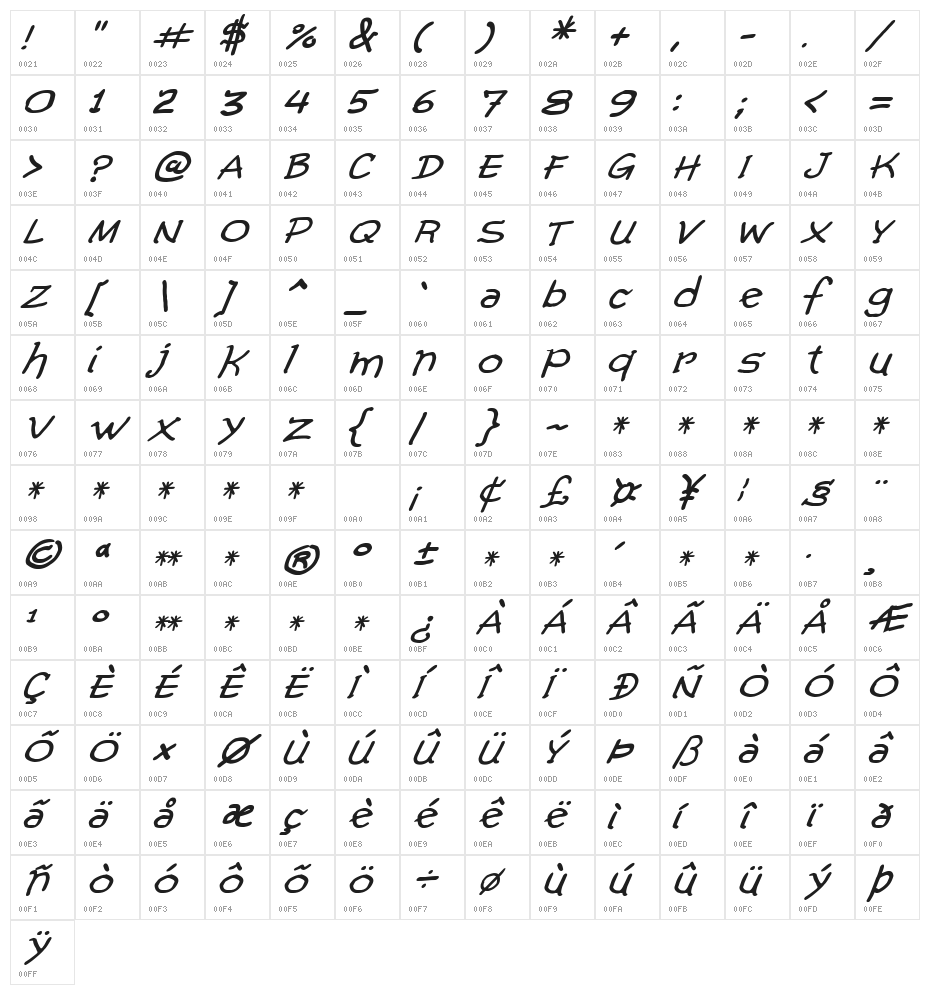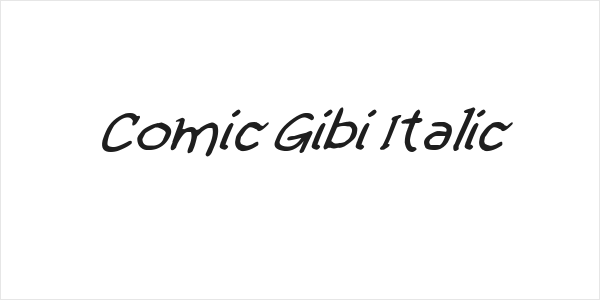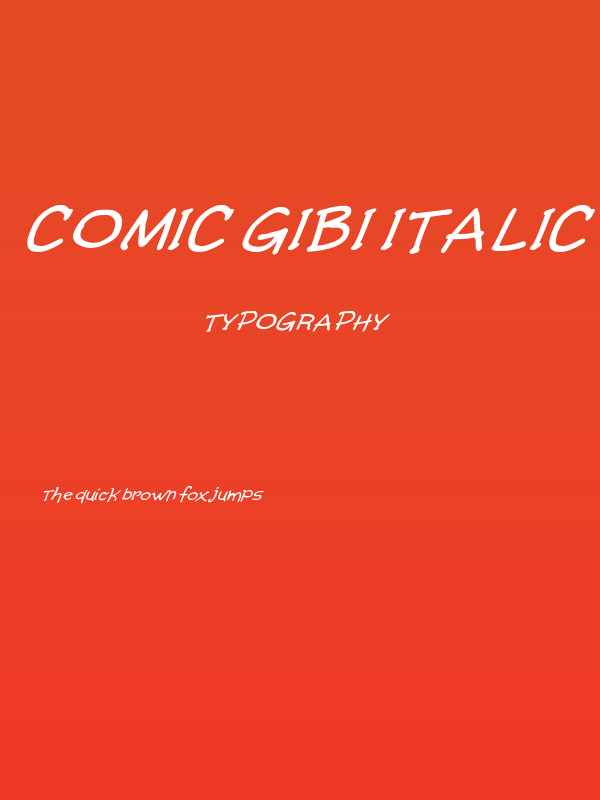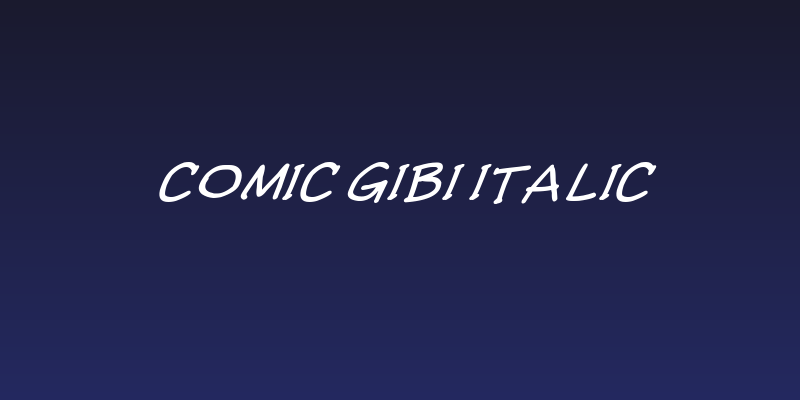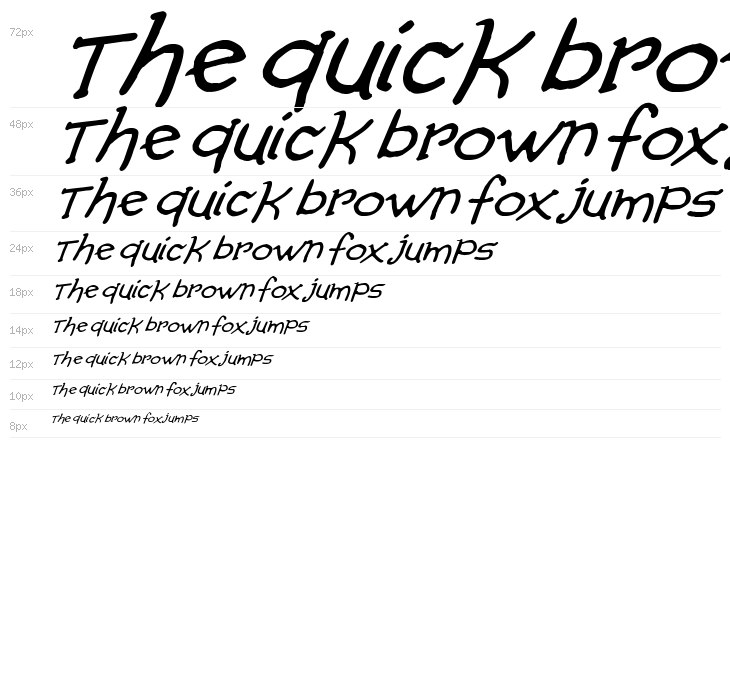
Comic Gibi Italic Font
Comic Gibi Italic Description
This playful and energetic font features a handwritten style with a casual, comic-like appearance. The letters are slightly slanted, adding a dynamic and informal feel. The strokes are bold and rounded, giving it a friendly and approachable look. It maintains consistent thickness throughout, ensuring readability while conveying a sense of fun and creativity. The font includes a full set of uppercase and lowercase letters, numbers, and a variety of special characters, making it versatile for various design needs.
| Proposed Projects | Ideal for comic books, children's books, playful branding, and informal invitations. |